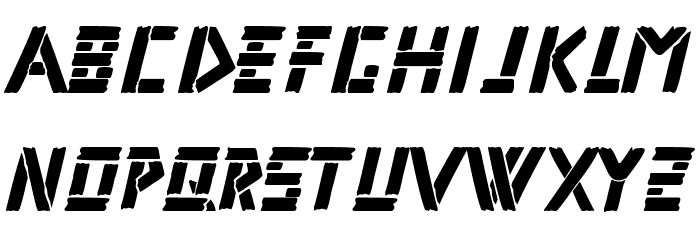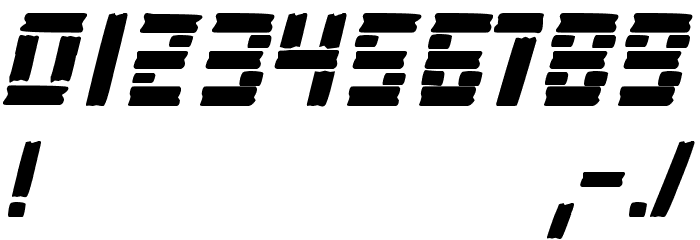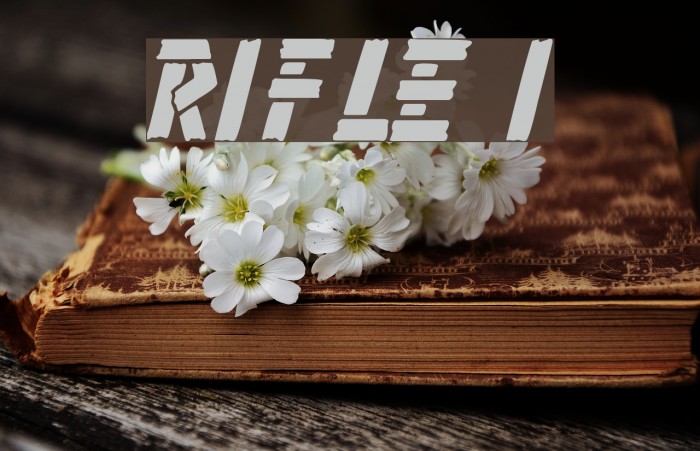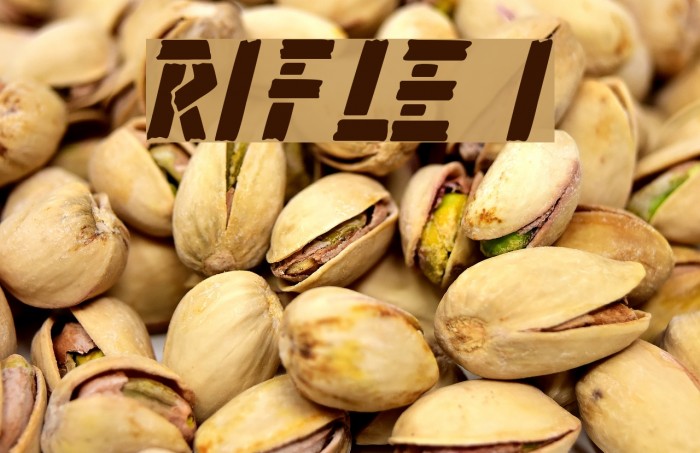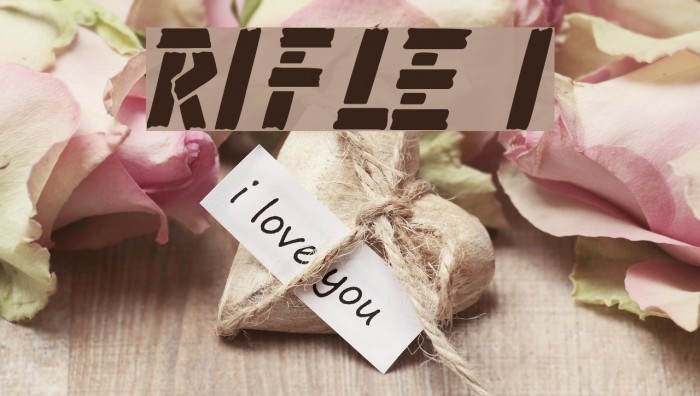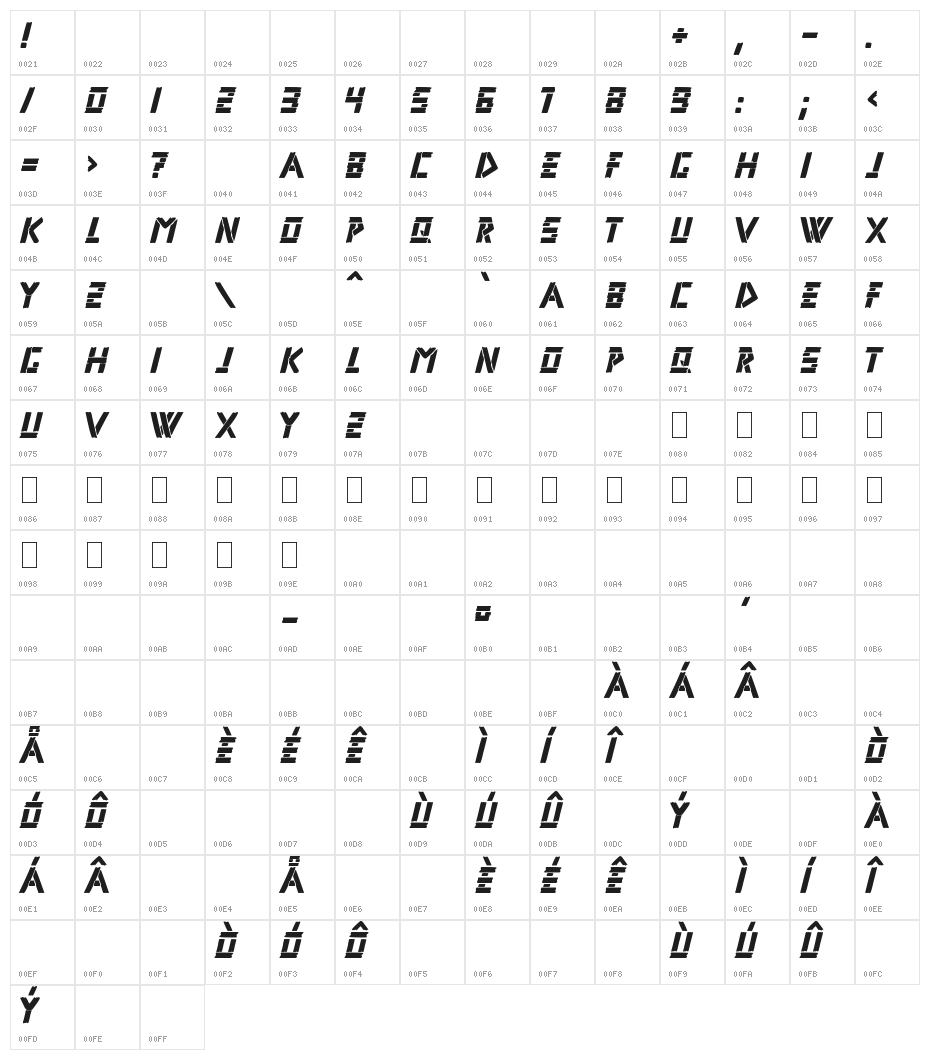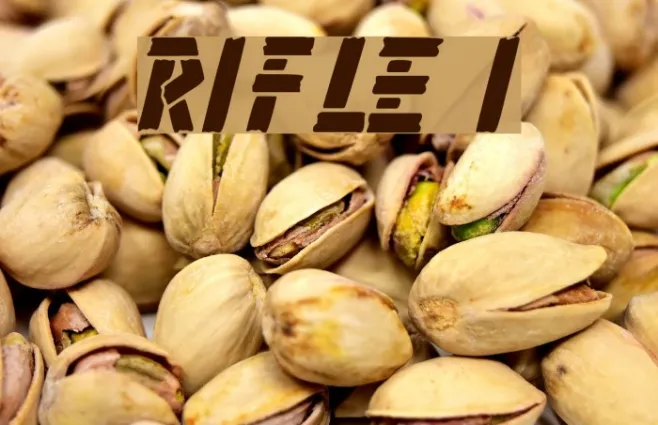
Rifle 1 Font
This font features a bold, angular design with a futuristic and dynamic appearance. The characters are constructed with sharp edges and a distinct geometric style, giving it a strong, impactful presence. The uppercase and lowercase letters maintain a consistent design, with each character exhibiting a unique, fragmented look that suggests movement and energy. The numbers and special characters follow the same design principles, ensuring uniformity across the font. This style is particularly eye-catching and suitable for projects that require a modern, edgy aesthetic.
A bold, angular font with a futuristic and dynamic design.